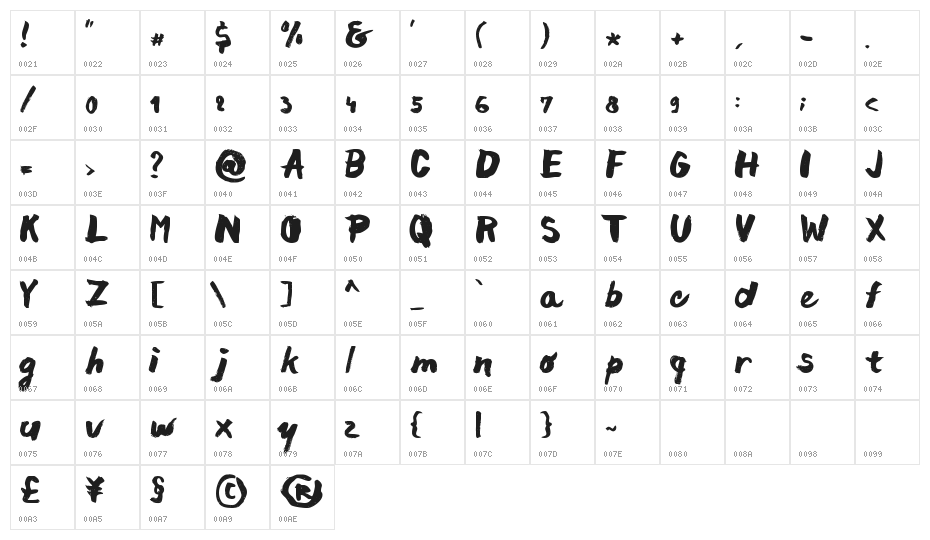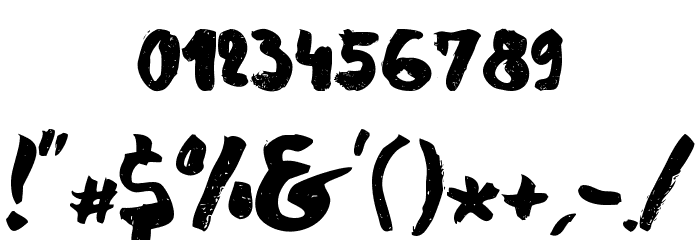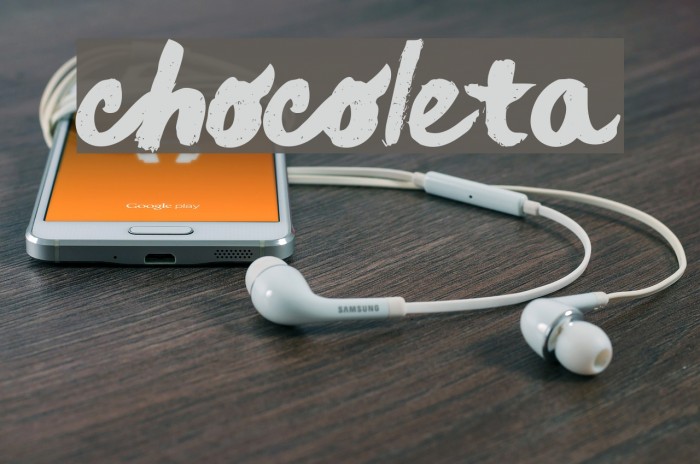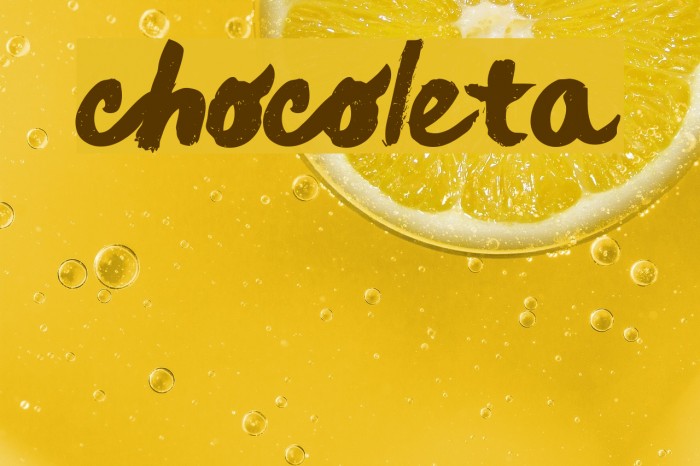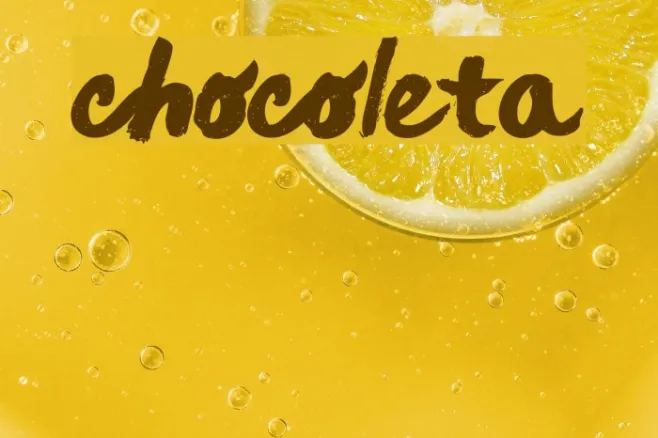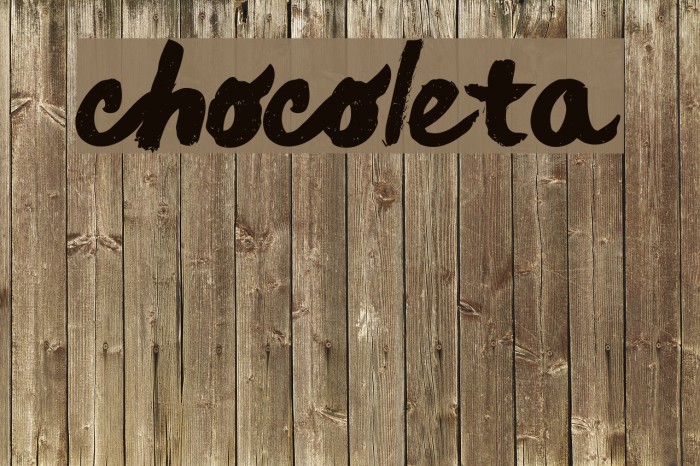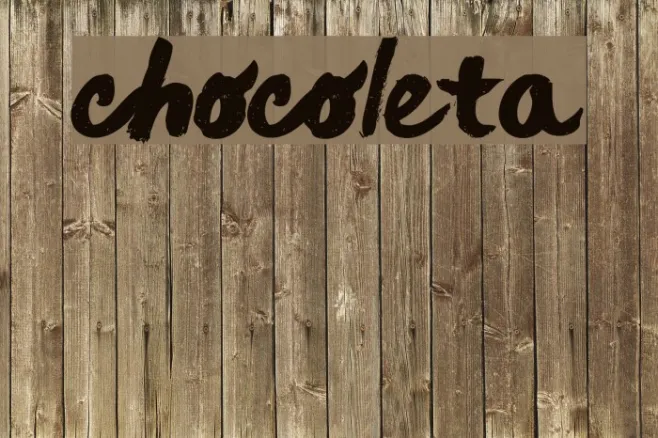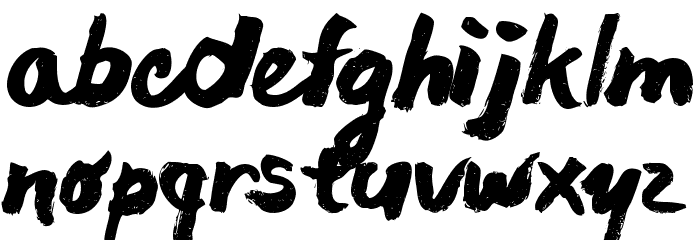
chocoleta Font
chocoleta Description
This font features a bold and expressive style with a hand-painted appearance. The letters are characterized by their thick strokes and slightly irregular edges, giving them a dynamic and energetic feel. The uppercase and lowercase letters maintain a consistent style, while the numbers and special characters complement the overall aesthetic. The font's brush-like texture adds a sense of movement and creativity, making it suitable for projects that require a bold and artistic touch.
| Proposed Projects | Ideal for posters, album covers, branding, and any creative projects that require a bold, artistic flair. |